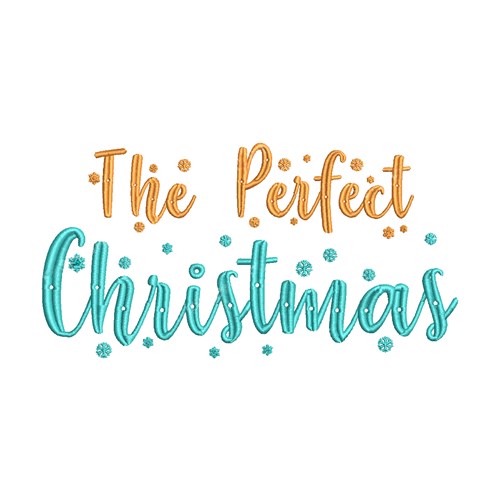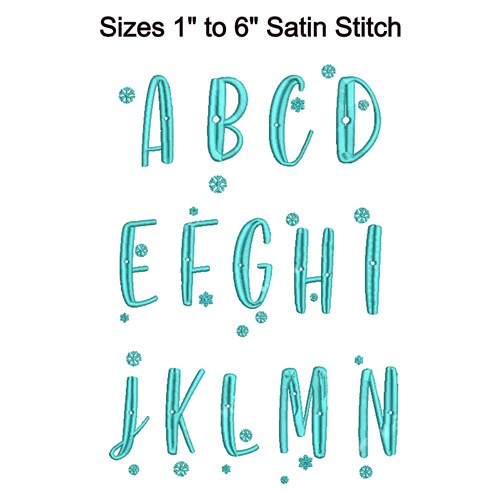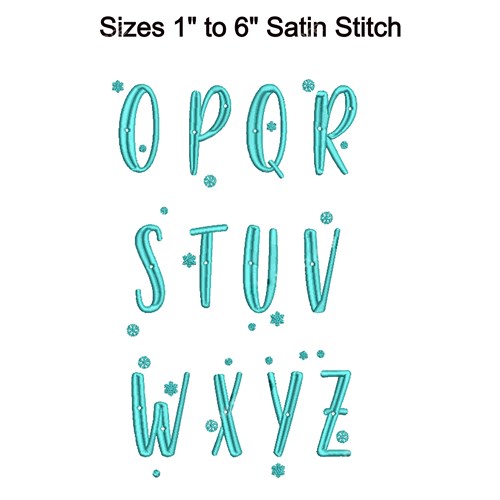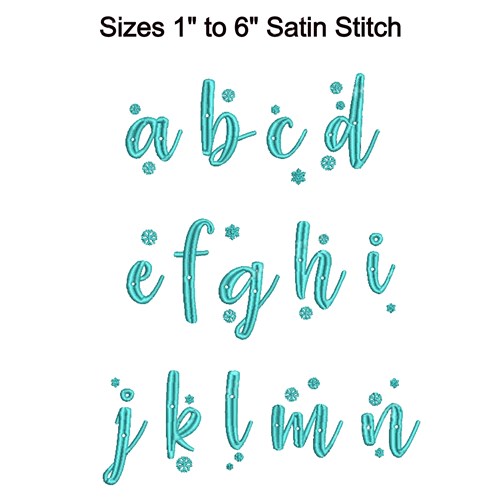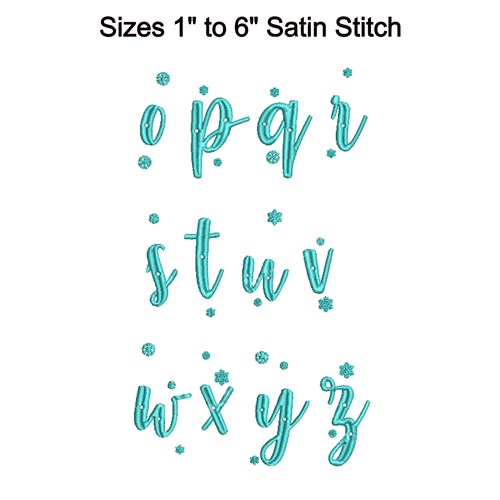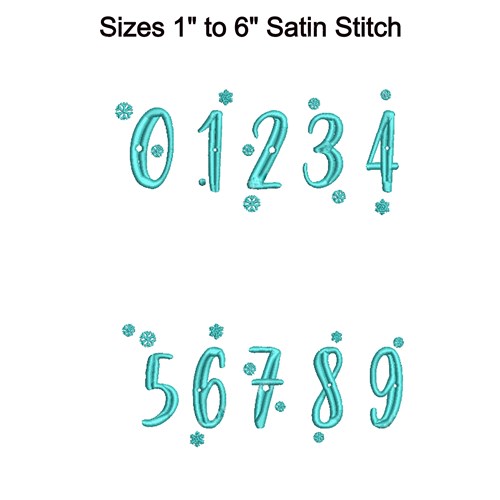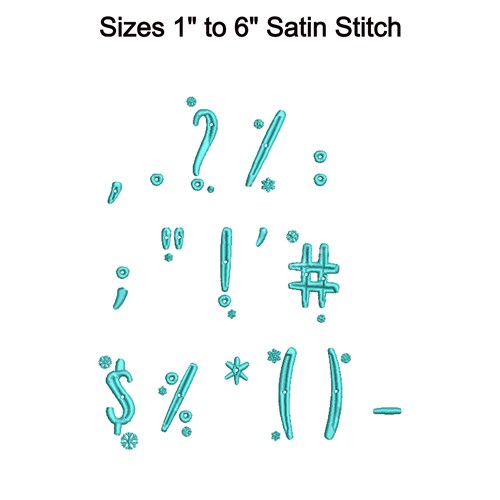
The Perfect Christmas Embroidery Font - Decorative Script Lettering - Home Format - PES, DST & 6 formats by Maya Kreations and other embroidery fonts available at EmbroideryDesigns.com.
Maya Kreations is happy to present The Perfect Christmas Embroidery Font - Decorative Script Lettering - Home Format - PES, DST & 6 formats machine embroidery font which has Festive script style machine embroidery font ideal for holiday decorations on pillows and table runners. The design includes charming embellishments in orange and teal, surrounding the phrase 'The Perfect Christmas'. Available in DST, PES and more formats. included. If you would like to view more embroidery fonts and alphabets please search our embroidery fonts page.